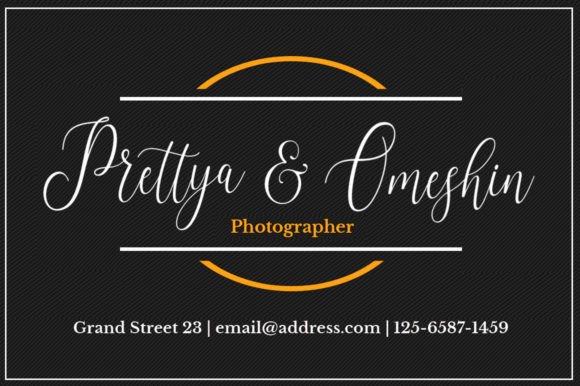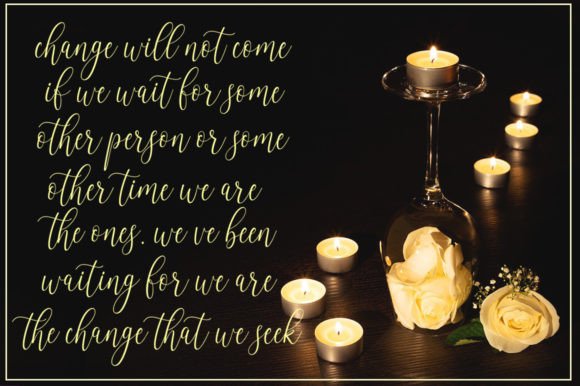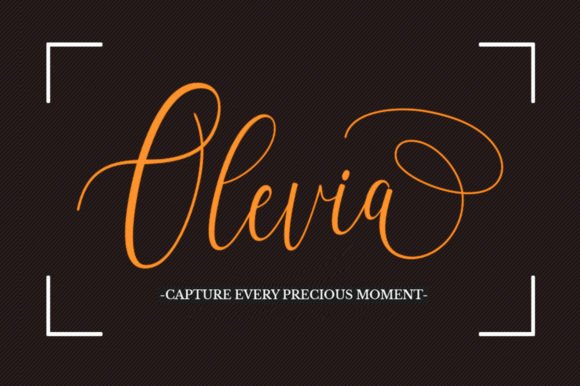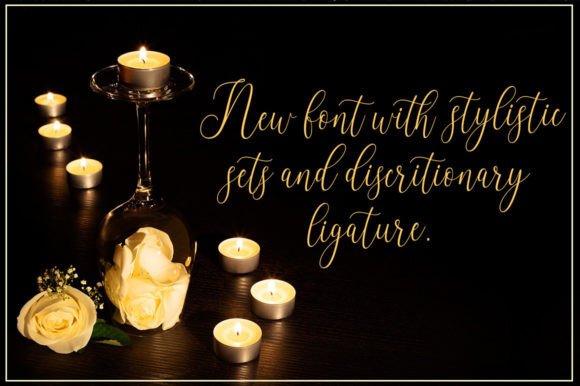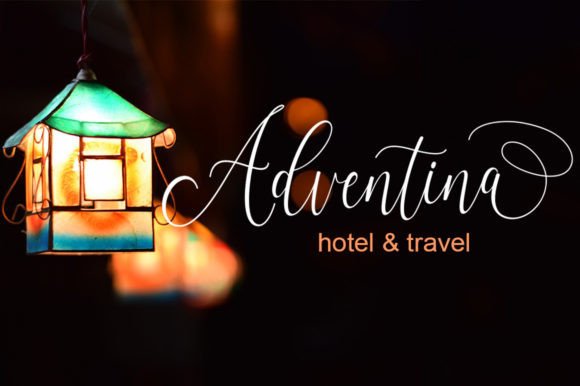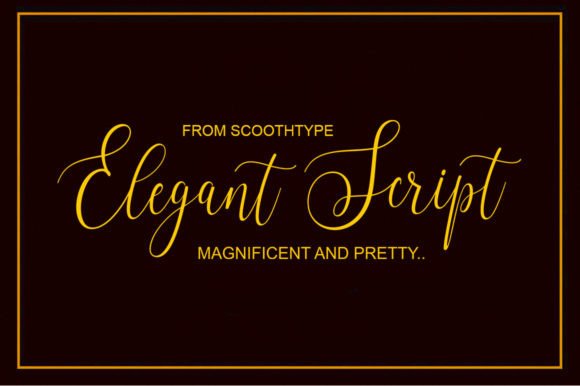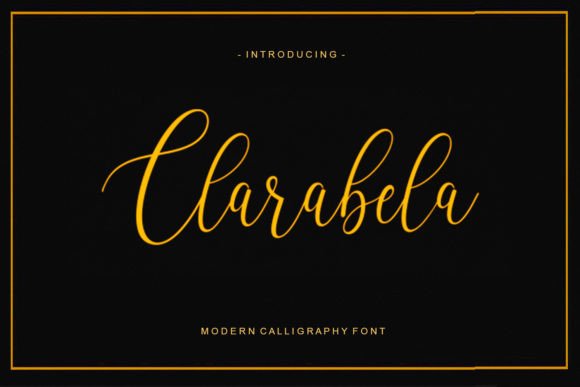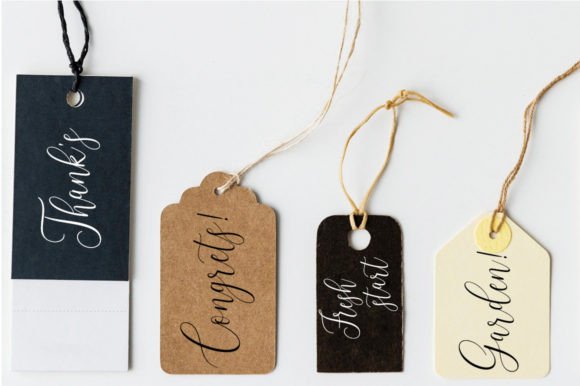
Clarabela
About Clarabela
Clarabela is a handwritten font with varied base lines, designed to convey elegance and style. It’s smooth, clean and feminine. Works perfectly for logos, magazines, menus, books, invitations, wedding / greeting cards, packaging, labels, t-shirts etc. All your designs will have an amazing homemade touch with Clarabela.